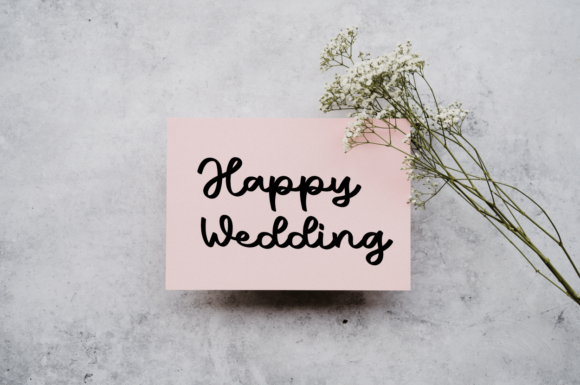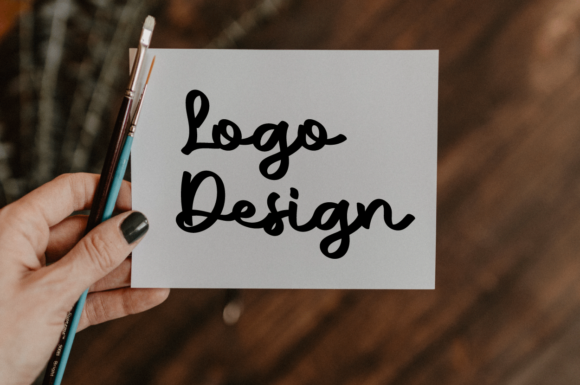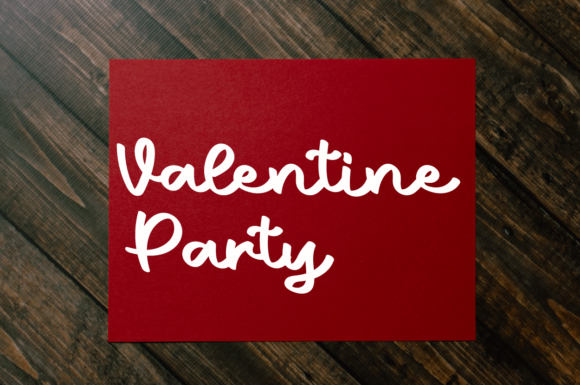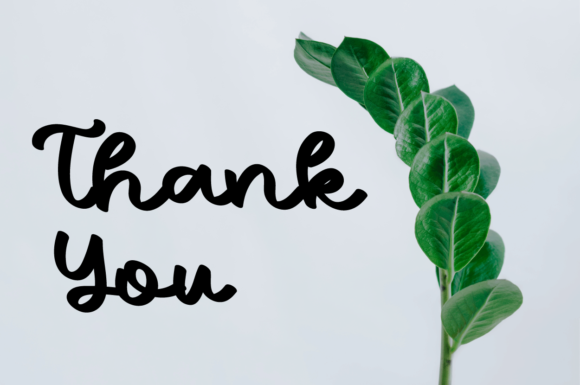
Introduction to Morning Special Font
As a designer, there’s nothing quite like the thrill of discovering a new font that perfectly captures the essence of a creative project. For me, it was the Morning Special Font – a sweet, romantic, and round lettered script font that stole my heart. I was working on a wedding invitation design, and I wanted something that would convey the love and joy of the occasion. That’s when I stumbled upon Morning Special Font, and I knew I had found the perfect match.
With its stunning design and high-quality features, the Morning Special Font has become a valuable resource for designers. Whether you’re working on a free download project or a commercial design, this font is sure to add a touch of elegance and sophistication. Its transparent background and customizable design make it an ideal choice for a wide range of creative projects, from greeting cards to logos and business cards.
Key Features of Morning Special Font
- Unique, hand-drawn design with a touch of elegance, perfect for creative projects
- Transparent background option for seamless integration with various design elements
- Perfect for use in logos, branding materials, and other design resources where a touch of sophistication is required
Honest Review: Morning Special Font
I recently had the chance to work with the Morning Special Font, and I must say it’s been a great addition to my design resource library. The font is available for a free download, which is always a plus for designers on a budget.
One of the standout features of the Morning Special Font is its high quality. The font is crisp and clean, making it perfect for a variety of creative projects, from print materials to digital designs. I’ve found it to be particularly useful for projects that require a clean and modern aesthetic.
- ✨ Clean and modern design
- ✨ High quality and crisp texture
However, there are a few limitations to be aware of:
- ⚠️ Limited character set, which may not be suitable for complex projects
- ⚠️ Not ideal for projects that require a transparent background
Overall, I’m impressed with the Morning Special Font and would definitely recommend it to designers looking for a high-quality, free font for their creative projects.
Tips for Getting the Most Out of Morning Special Font
To get the most out of Morning Special Font, experiment with different font sizes, colors, and styles to create visually appealing text overlays. You can also use the font in combination with other design elements, such as images and graphics.
Morning Special Font is ideal for use in creative projects, such as: